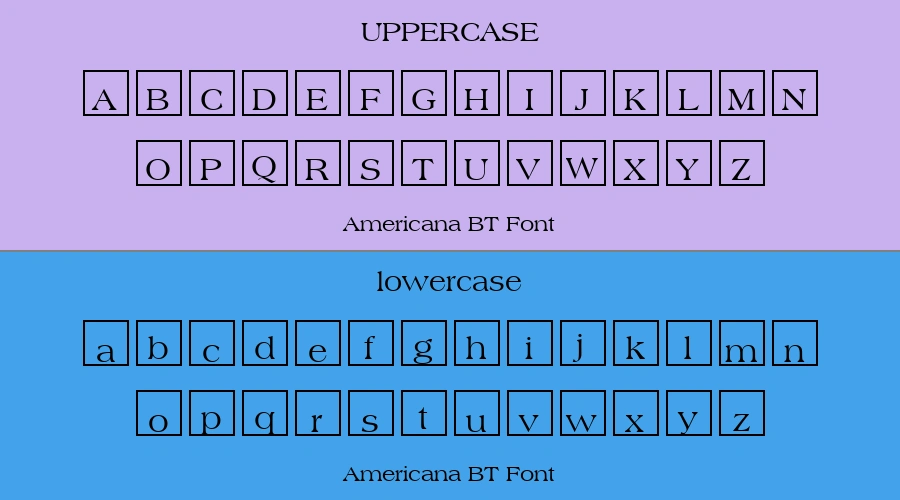
About Americana BT Font
When typographic excellence matters most, Americana BT Font delivers through its thoughtful blend of ornamental caps and textual warmth. Specially crafted for magazine layout, it offers the reliability and technical excellence required for sophisticated design work. Every detail serves a purpose.
The character set showcases thoughtful details like ornamental details alongside functional discretionary ligatures. This proves especially valuable in packaging, where scalability directly influences results. Particular attention was paid to ear formation and historical reference during development.